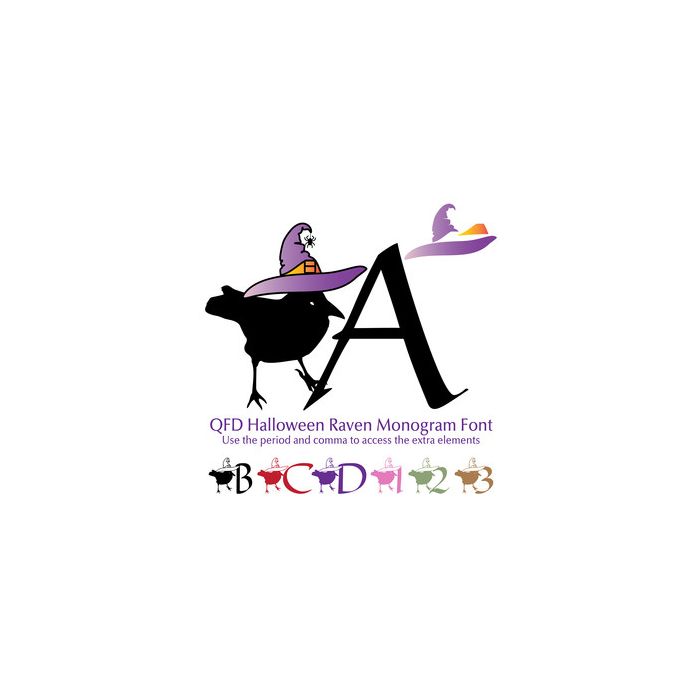
Combine this fun font with the other QFD Monogram fonts! Use the period and comma to access the extra elements. Perfect for cards, wall art, t-shirts, mugs and anything else you can think of. See our detailed monograms tutorial by clicking the Instructions button.